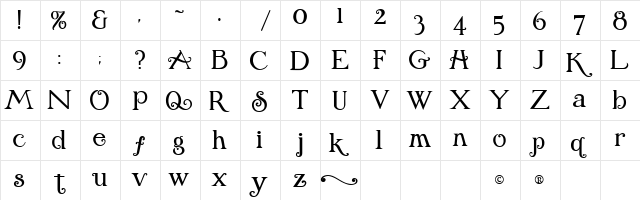
MummCountryAlphabet Regular
MummCountryAlphabet is a composed and adaptable typeface that performs quietly and consistently across a wide range of design contexts.